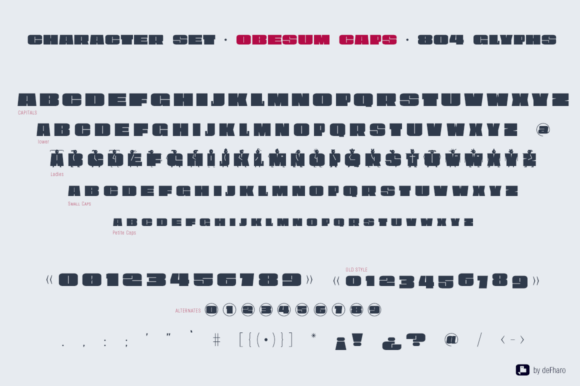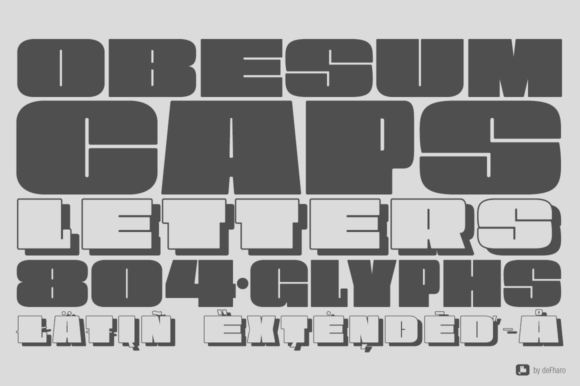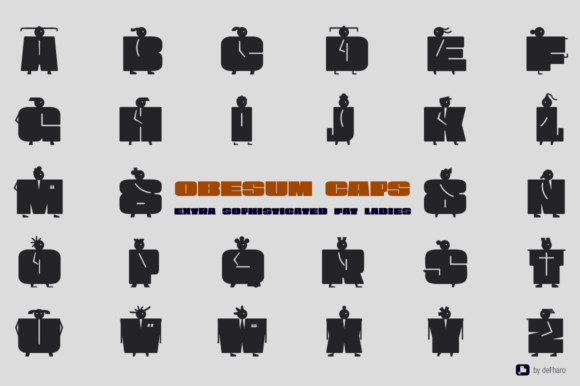
Introduction to Obesum Caps Font
As a designer, have you ever found yourself in the midst of a creative project, desperately searching for the perfect font to give it that extra oomph? Maybe you’ve scrolled through countless design resources, only to settle for a font that just doesn’t quite fit the bill. That’s where the Obesum Caps Font comes in – a game-changing, high-quality display typeface that’s sure to elevate your design to the next level.
With its thick, geometric design and striking contrast in counterforms, the Obesum Caps Font is a true design gem. Its unique features, including support for Latin Extended-A, dynamic fractions, and ordinals, make it an invaluable resource for designers looking to add a touch of sophistication to their creative projects.
Key Features of Obesum Caps Font
- Unique, high-quality font design ideal for creative projects requiring a bold, eye-catching aesthetic.
- Designed with a clear, readable font style, making it suitable for a wide range of applications, from digital displays to printed materials.
Honest Review: Obesum Caps Font
I recently had the chance to work with the Obesum Caps Font in a creative project, and I must say it’s a solid design resource. The font is a high-quality addition to any design arsenal, offering a clean and modern aesthetic that can elevate your work.
One of the things that stands out about Obesum Caps Font is its versatility. It works well in a variety of settings, from digital design to print media. The font is also highly customizable, allowing you to tailor it to your specific needs.
Some of the key features that I appreciate about Obesum Caps Font include:
- ✨ High-quality design that’s sure to impress
However, there are a few limitations to consider. For example:
- ⚠️ Limited font sizes and weights may limit its use in certain creative projects
Overall, I’m impressed with Obesum Caps Font and would recommend it to anyone looking for a high-quality design resource. It’s a solid choice for any creative project, and its transparent background and free download make it a convenient option to boot.
Obesum Caps Font Overview
Obesum Caps Font is a high-quality design resource ideal for creative projects. This font features a unique, bold style with a transparent background, making it perfect for adding a touch of elegance to your designs.
Tips for Getting the Most Out of Obesum Caps Font
1. Experiment with different font sizes and styles to create a visually appealing design.
2. Combine Obesum Caps Font with other design elements to add depth and interest to your project.
Common Use Cases for Obesum Caps Font
1. Headlines and titles for marketing materials.
2. Branding and logos for businesses.
3. Social media graphics and posts.